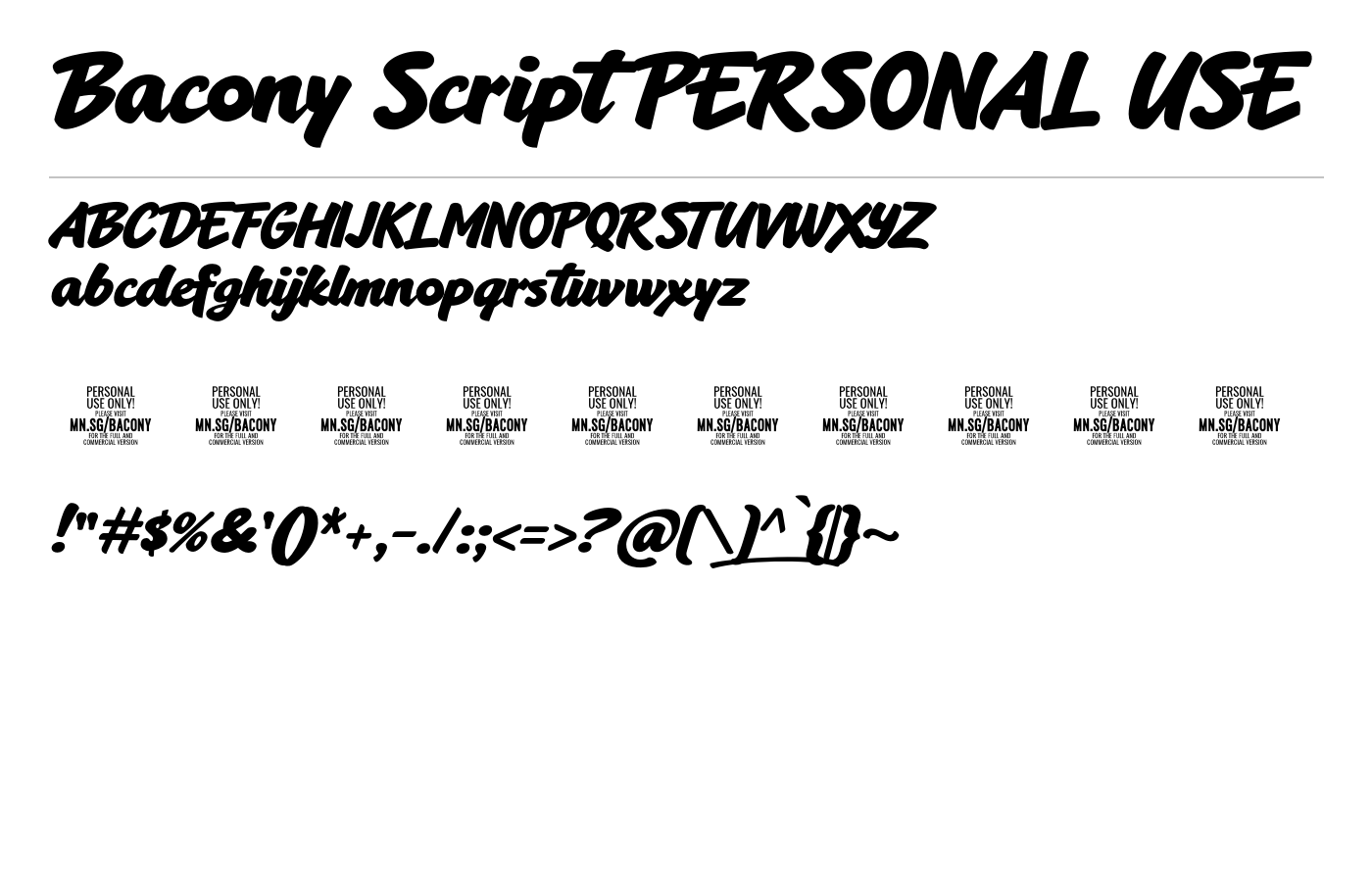
Bacony Script is a bold, casual script font with a friendly, handwritten feel, featuring smooth, rounded strokes and a moderate x-height that ensures readability. Its playful yet strong character makes it ideal for informal branding, social media graphics, and creative headlines where a warm and approachable vibe is desired. This font works well for projects needing a lively, personal touch without sacrificing clarity or impact.
Bacony Script PERSONAL USE Font
About Bacony Script PERSONAL USE Font